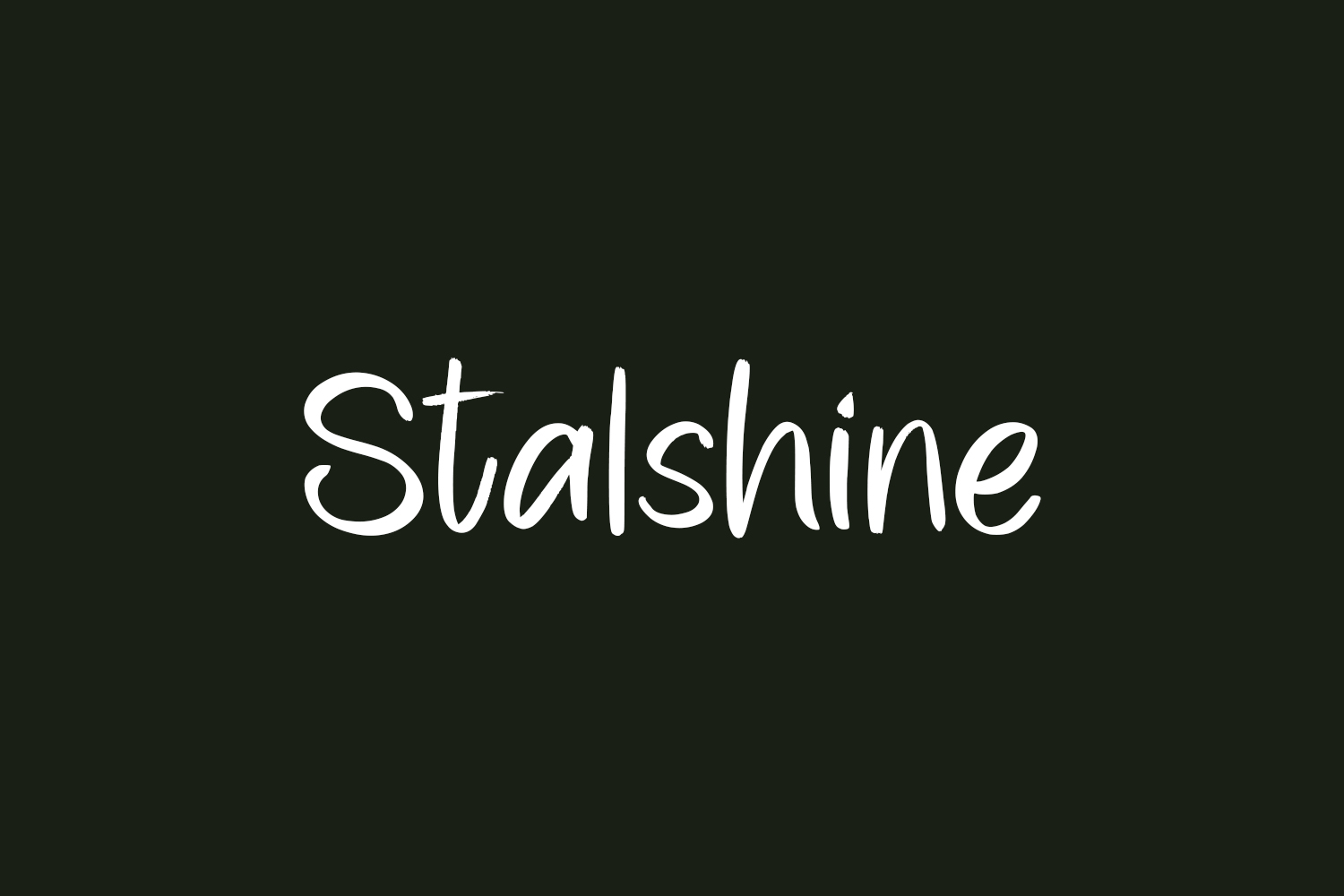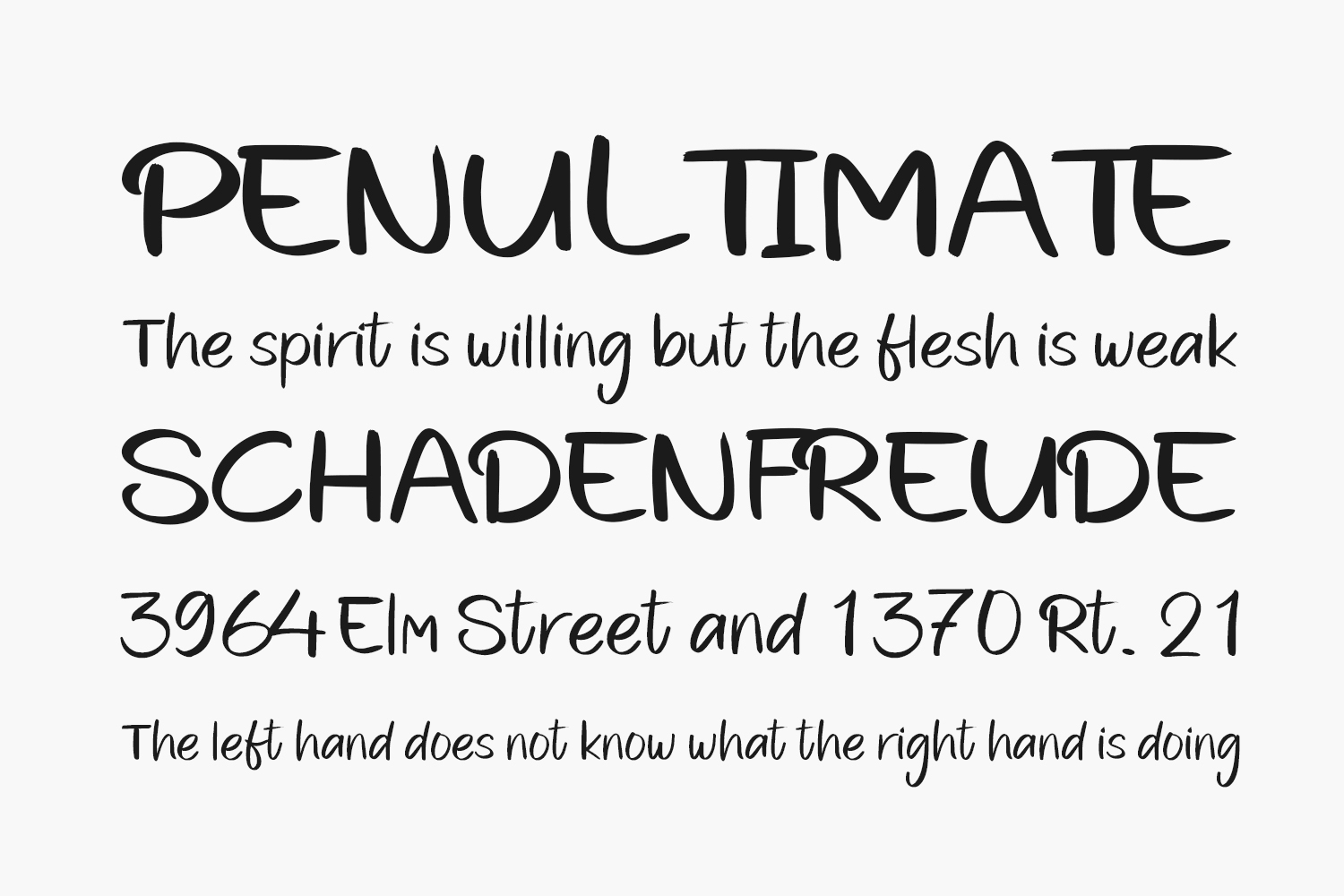
Stalshine Free Font is an enchanting handwritten font. This versatile script font has a wide spectrum of applications ranging from greeting cards to headlines and is guaranteed to add a romantic feel to your next project. Stalshine Free Font was designed by Qwrtype Foundry and is free for personal use only. Please purchase the full version for commercial use.